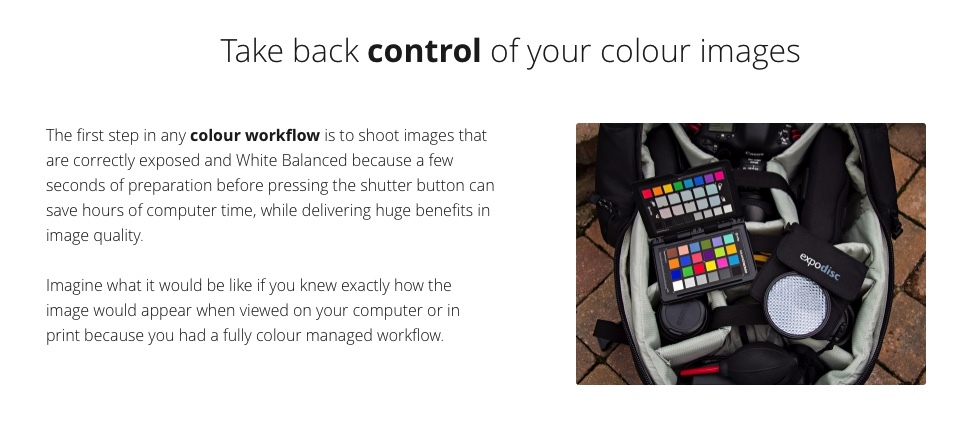
I’m just looking for some feedback here and wondered whether there is any preference here for Open Sans or Muller on my site? Open Sans if the first one and Muller is second. The choice of font can change the whole impression of a site so I want to get this right. If you click on the images you can see them bigger. I would also welcome any other suggestions for a clean modern font.
Personally, I prefer the second sample, because it’s easier to read and because the difference between regular body text and the bold text is not exaggerated as it is in the first sample.
But I predict that there will be many people who will prefer the first sample.
I think that @Rovertek is right about the greater difference in weight between the ‘normal’ weight and bold in Open Sans. However, I think that the normal weight in that sample is actually the light (300) rather than the regular (400), so if that concerned you you could simply use the regular or use the semibold (600) instead of the bold (700). That would be my preference because I think Open sans is considerably more attractive, particularly the light. It has a proper enclosed bowl for the descender of the lower case g instead of a tail, it has longer descenders and a more attractive f.
The muller font is a free sample so I gather I would have to buy it if I want a wider choice. I experimented once before with the weighting on Open Sans but felt it looks slightly clumpy at 400 and I preferred it at 300.
So far I’ve had feedback from 8 people and it’s 6-2 in favour of Muller. The main reason being cited is that it’s easier to read. I’m interested here in the psychological impact and which font will inspire the most confidence. Newsletters will be sent out to big numbers of list subscribers, so even a 1% gain in sales conversion could make a major difference.